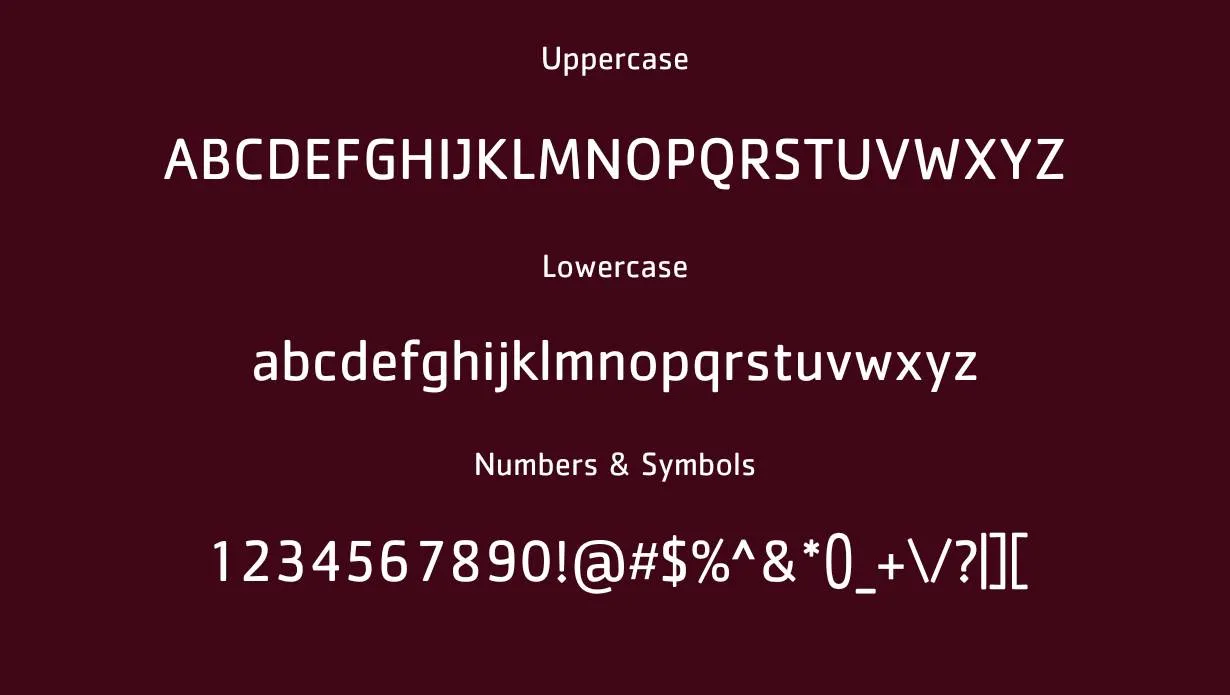
The Cachet Book font finds its place in elegant, formal, or literary designs. It’s commonly used for titles in high-quality book covers, sophisticated invitations, or formal documents. With its classic and refined appearance, it elevates the visual appeal of printed materials or digital designs.
| Name | Cachet Book Font |
| Designer | Dave Farey |
Typically, it includes a broad range of characters and symbols, making it suitable for a variety of language support and design needs.